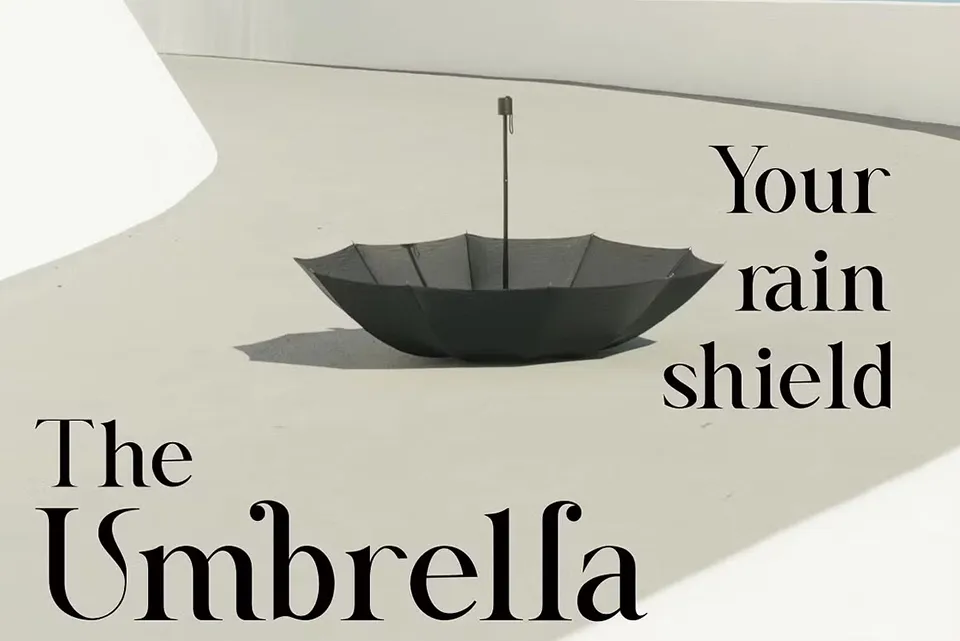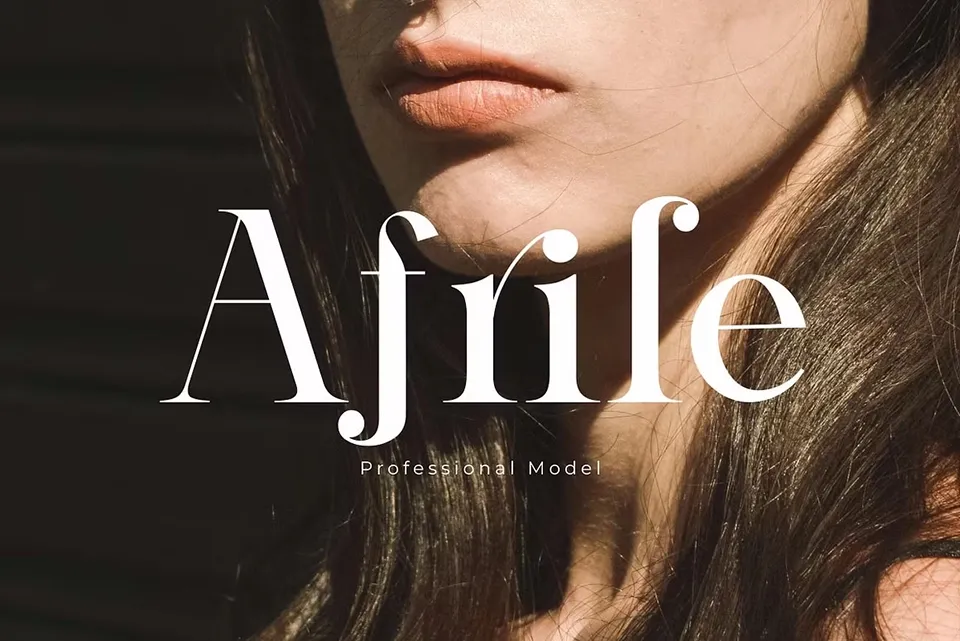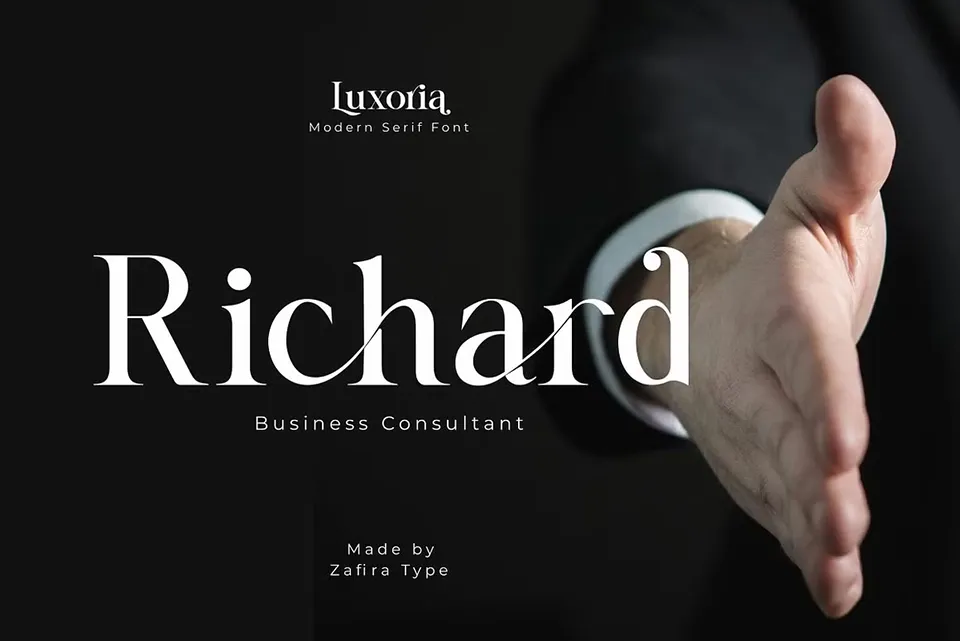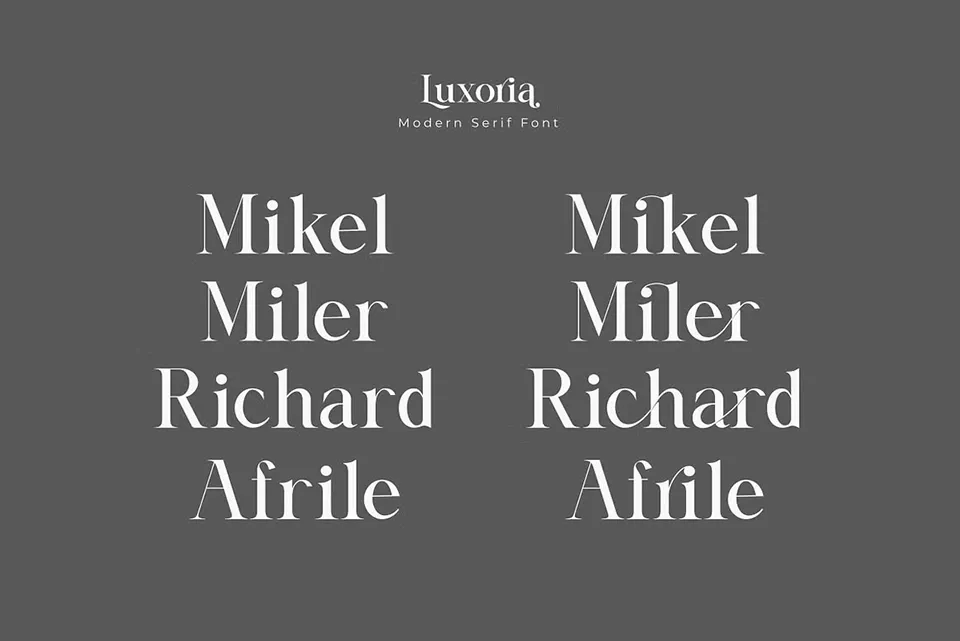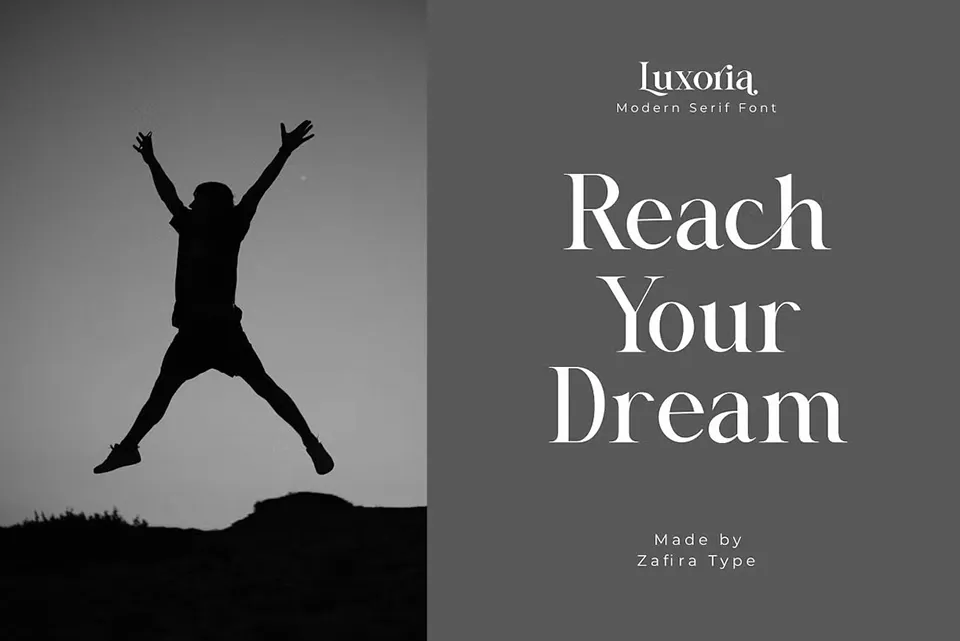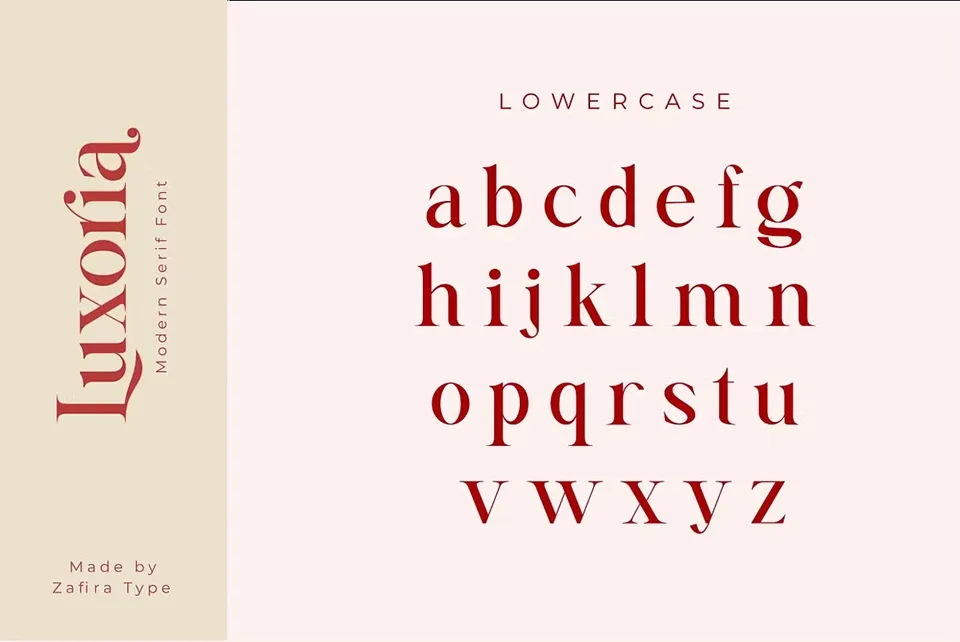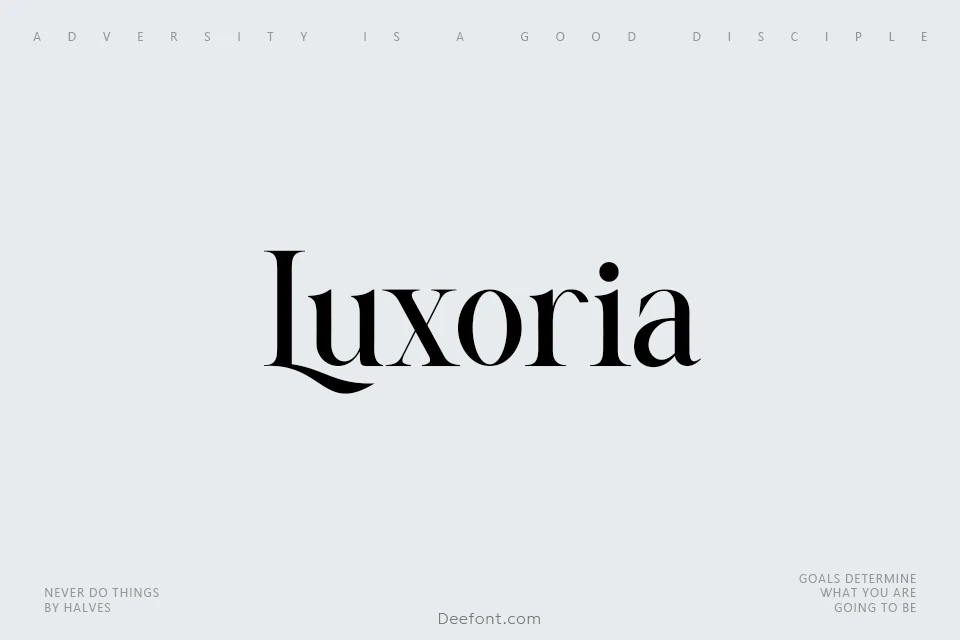
Luxoria Font
Luxoria Font, created by zafira.type, is a sophisticated and charming serif typeface designed with a fashionable flair. As a modern serif typeface, it maintains a high level of readability, making it suitable for various display purposes. Its elegant characteristics lend themselves well to branding projects, logos, wedding invitations, social media graphics, advertising, product packaging, and stationery. Luxoria brings a refined and stylish quality to any project that requires a touch of class. The demo version is available for personal use only; a commercial license must be obtained for business applications.